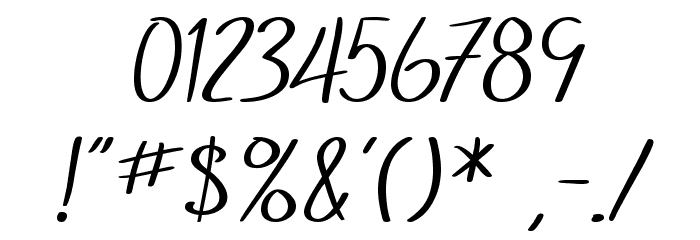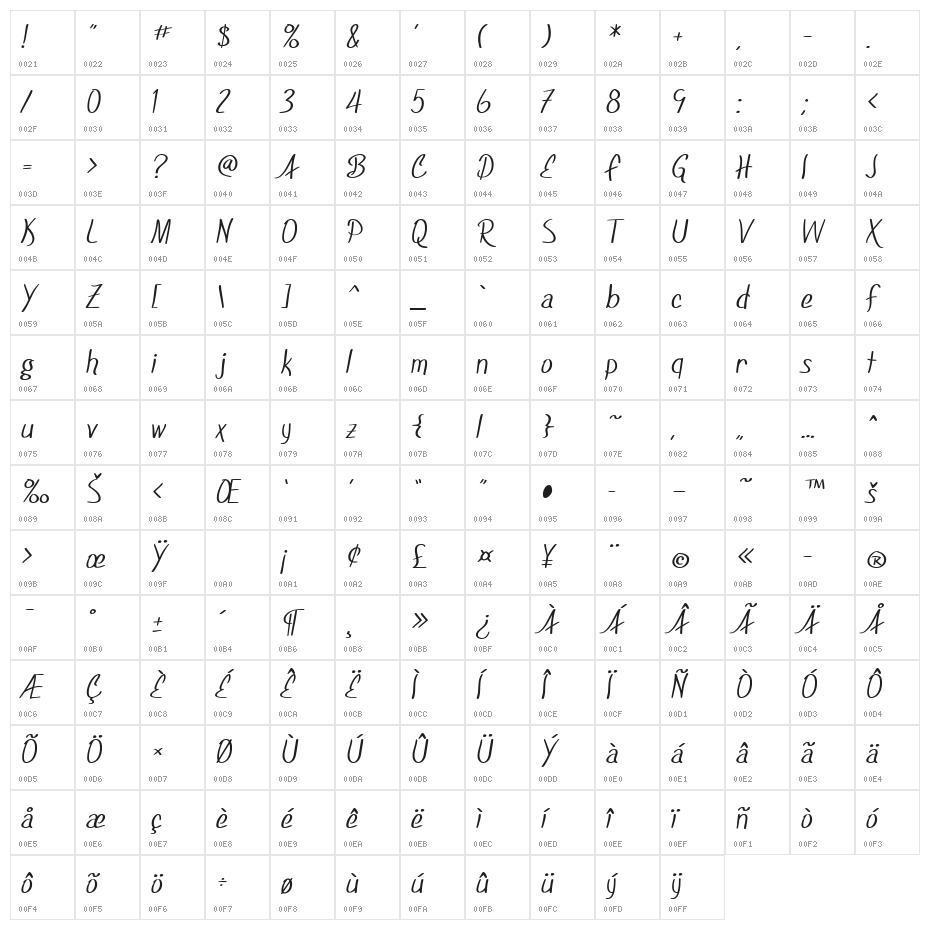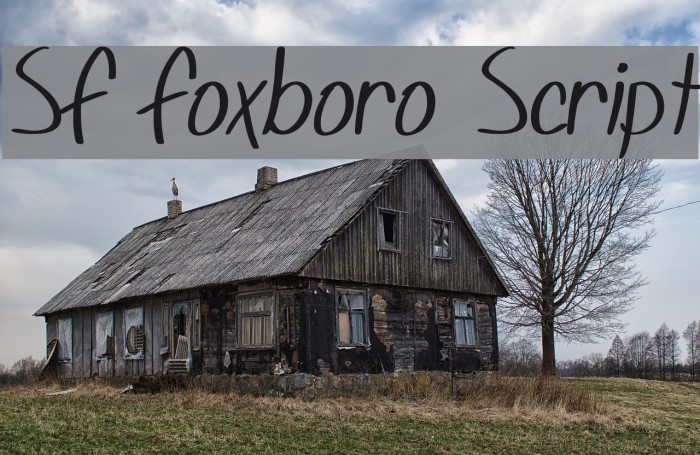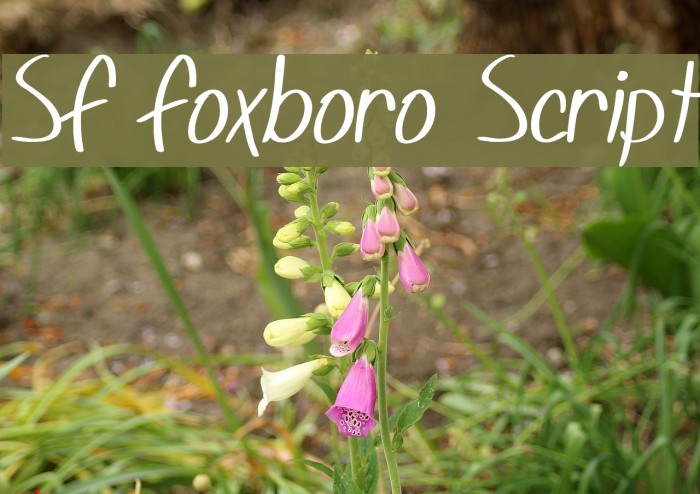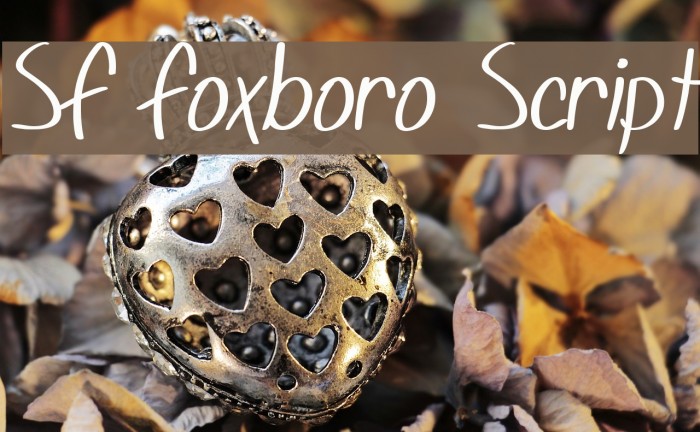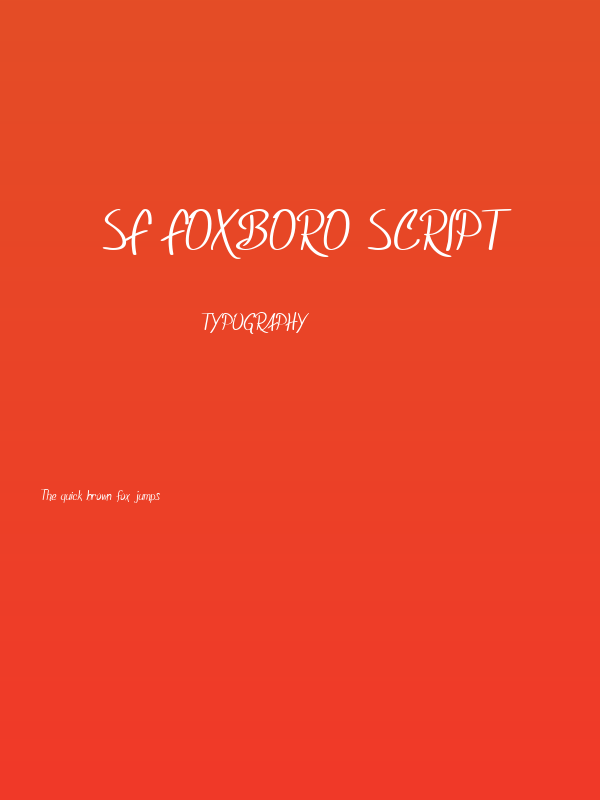
SF Foxboro Script Font
SF Foxboro Script Description
This font features a lively and flowing script style that mimics the fluidity of handwriting. The uppercase letters are bold and dynamic, with sweeping curves and elegant loops that give a sense of movement and grace. The lowercase letters complement this with a slightly more restrained yet equally expressive design. The numerals are clear and consistent, maintaining the script's overall aesthetic. Special characters are thoughtfully integrated, ensuring versatility in various applications. This font's playful yet sophisticated style makes it suitable for a wide range of creative projects.